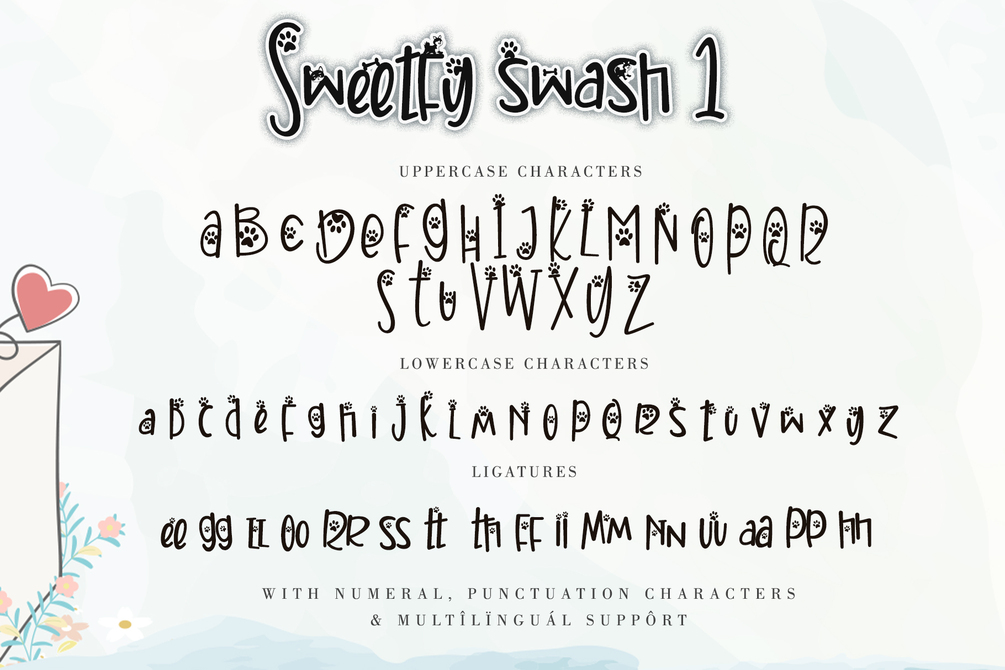
Sweetfy
Sweetfy is an amazing display font. It is the perfect choice for dog related and anything project!
• Many features: Alternates, Swash1, Swash2 and Titling
• Support multilingual; ä ö ü Ä Ö Ü ß ¿ ¡
• This font is PUA encoded which means you can access all of the playful glyphs and swashes with ease! It also features a wealth of special features including alternate glyphs and ligatures.